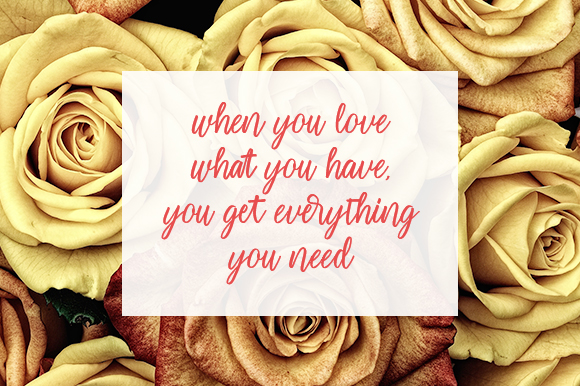
Preview and download Geulis Font. Created by Muhammad Wahyudin in Script Handwritten styles with Free for personal use license.
Geulis is a flowing handwritten font, described by an elegant touch, perfect for your favorite projects. Fall in love with its incredibly distinct and timeless style and use it to create spectacular designs! NOTE: This demo font is for PERSONAL USE ONLY! But any donation is very appreciated. Paypal account for donation: https://www.paypal.me/wahyudin1886 Link to purchase a commercial license: https://thehungryjpeg.com/product/3817024-geulis Please visit our store for more great fonts : https://www.creativefabrica.com/designer/yoew Follow our Instagram: @_yoew Email: wahyudin1886@gmail.com Thank you. |